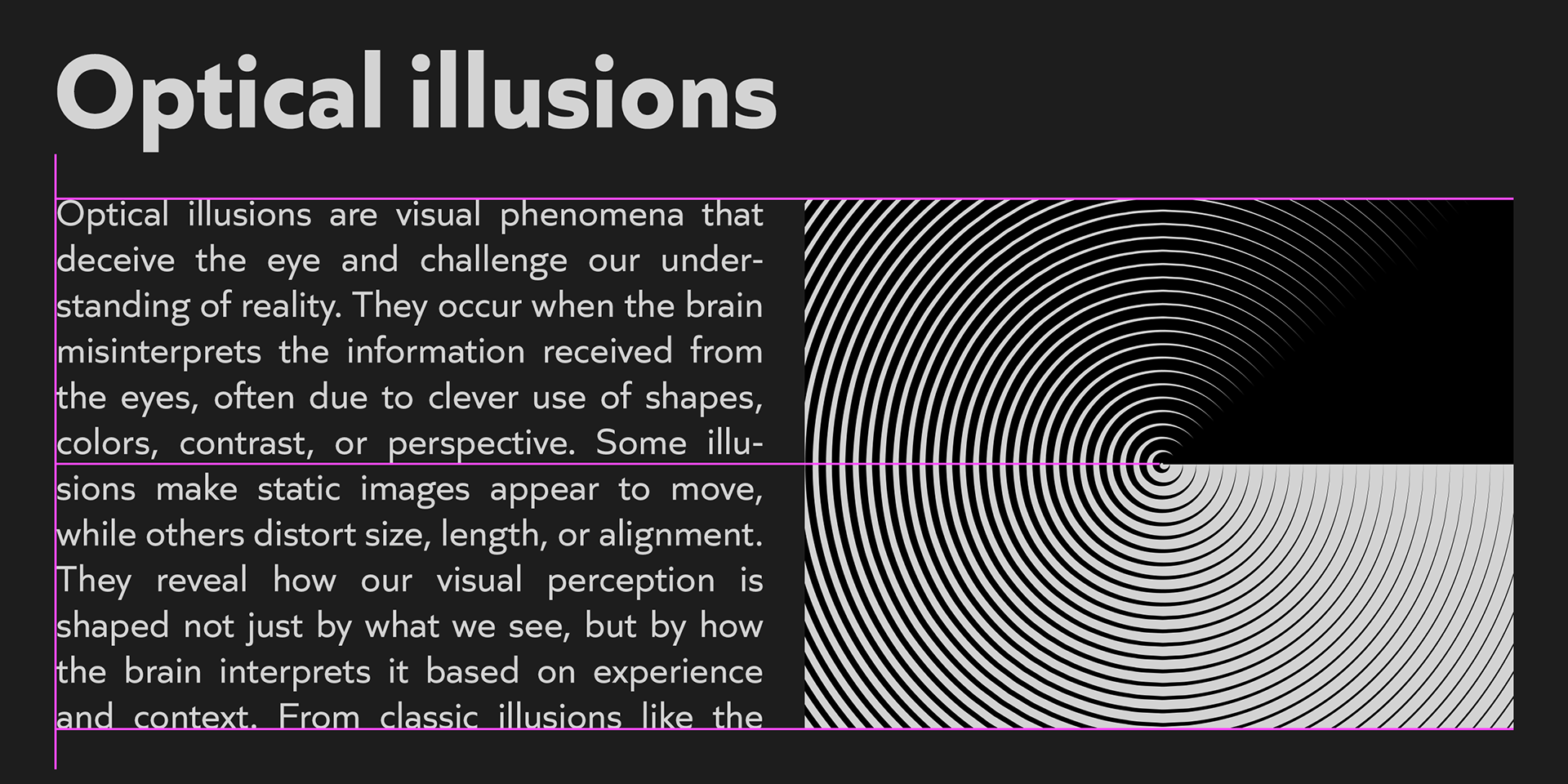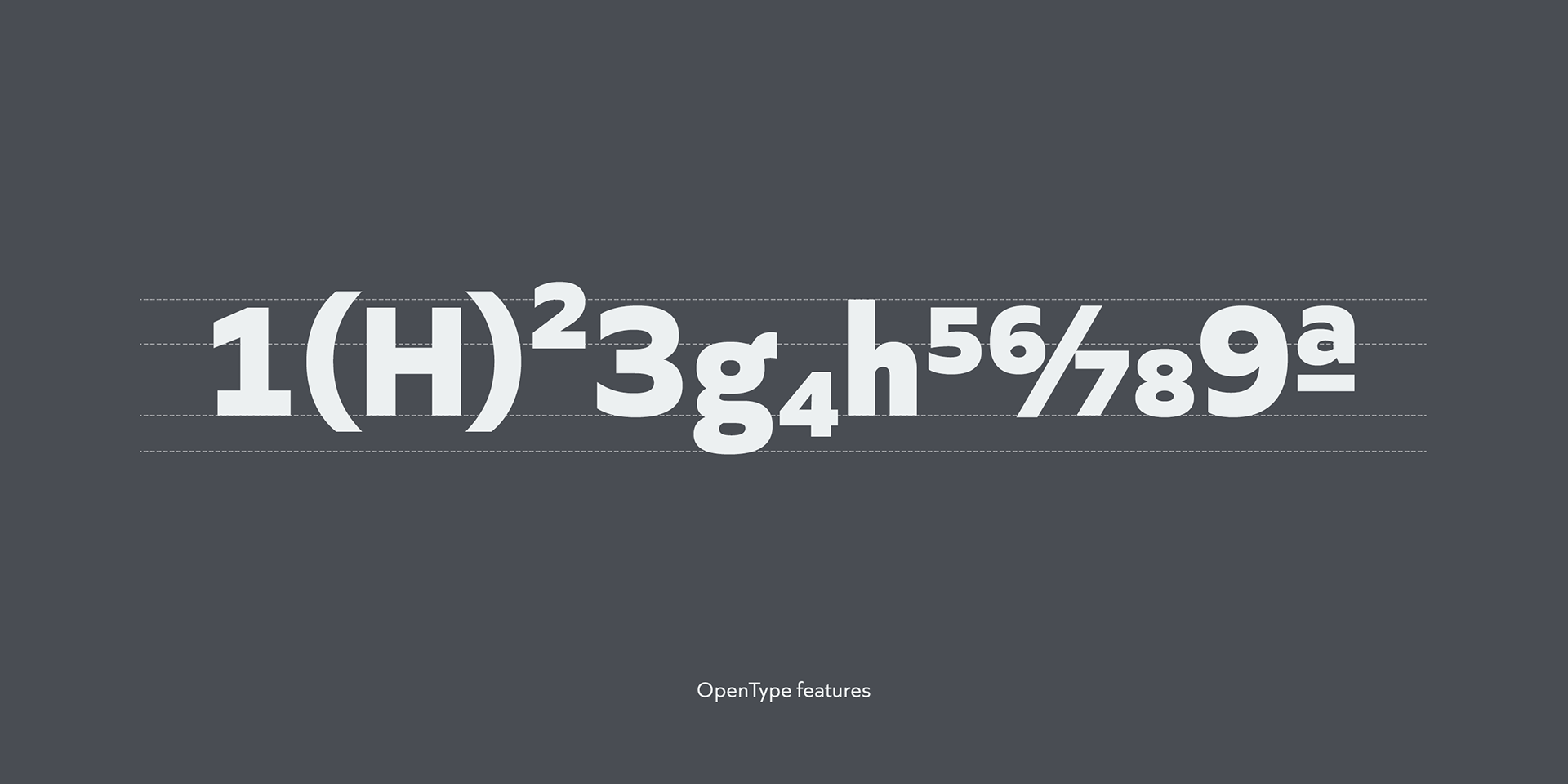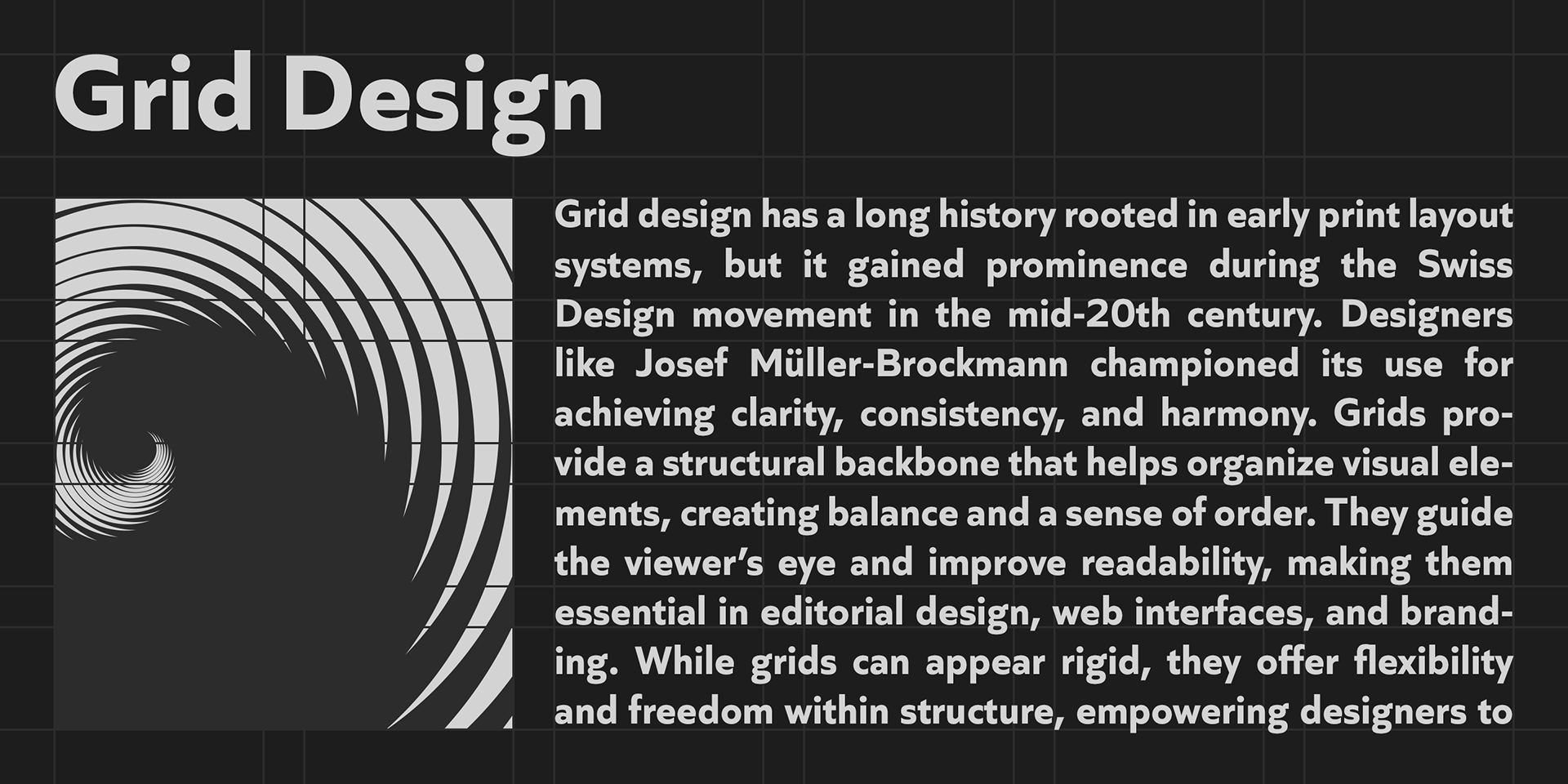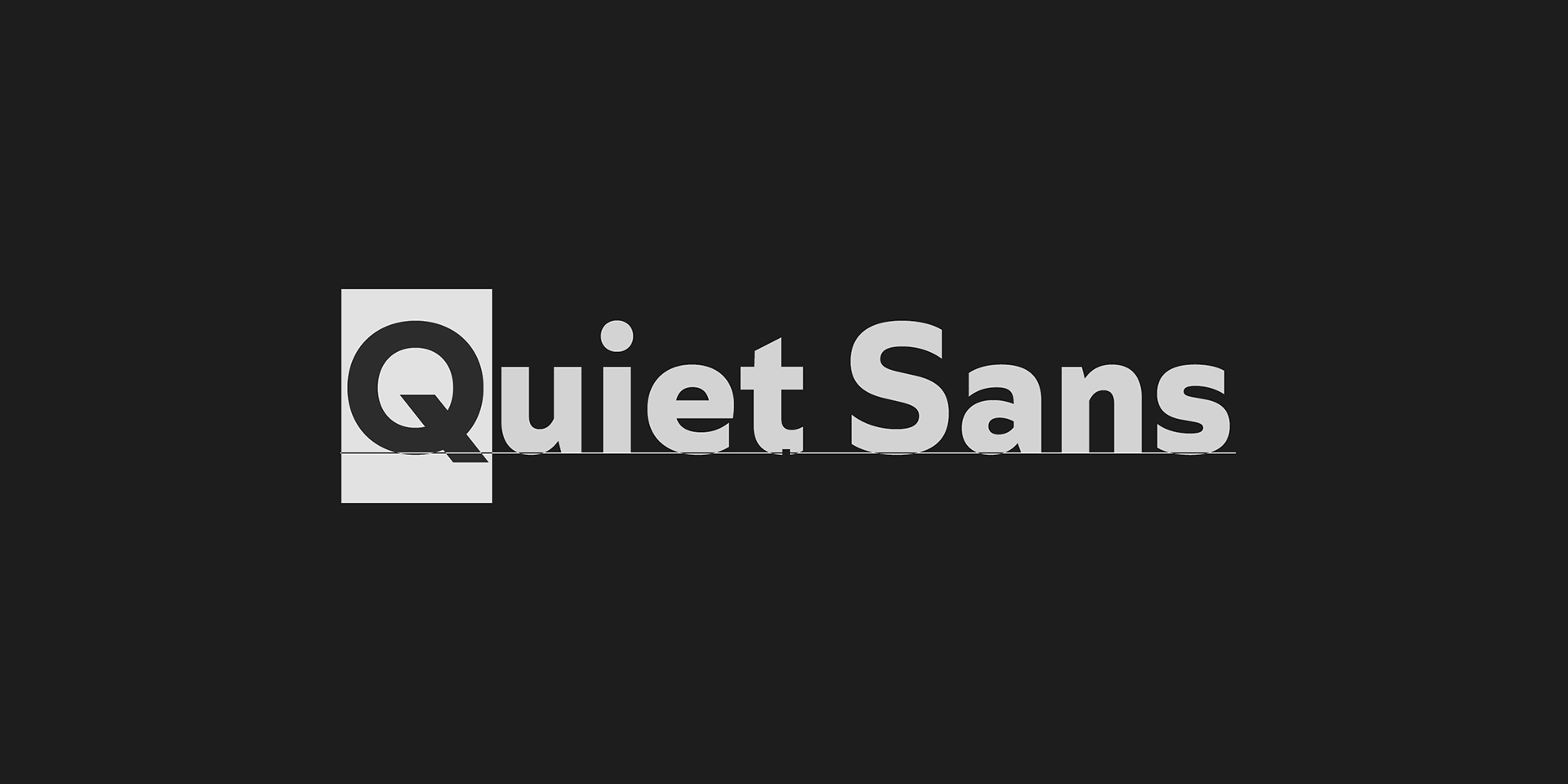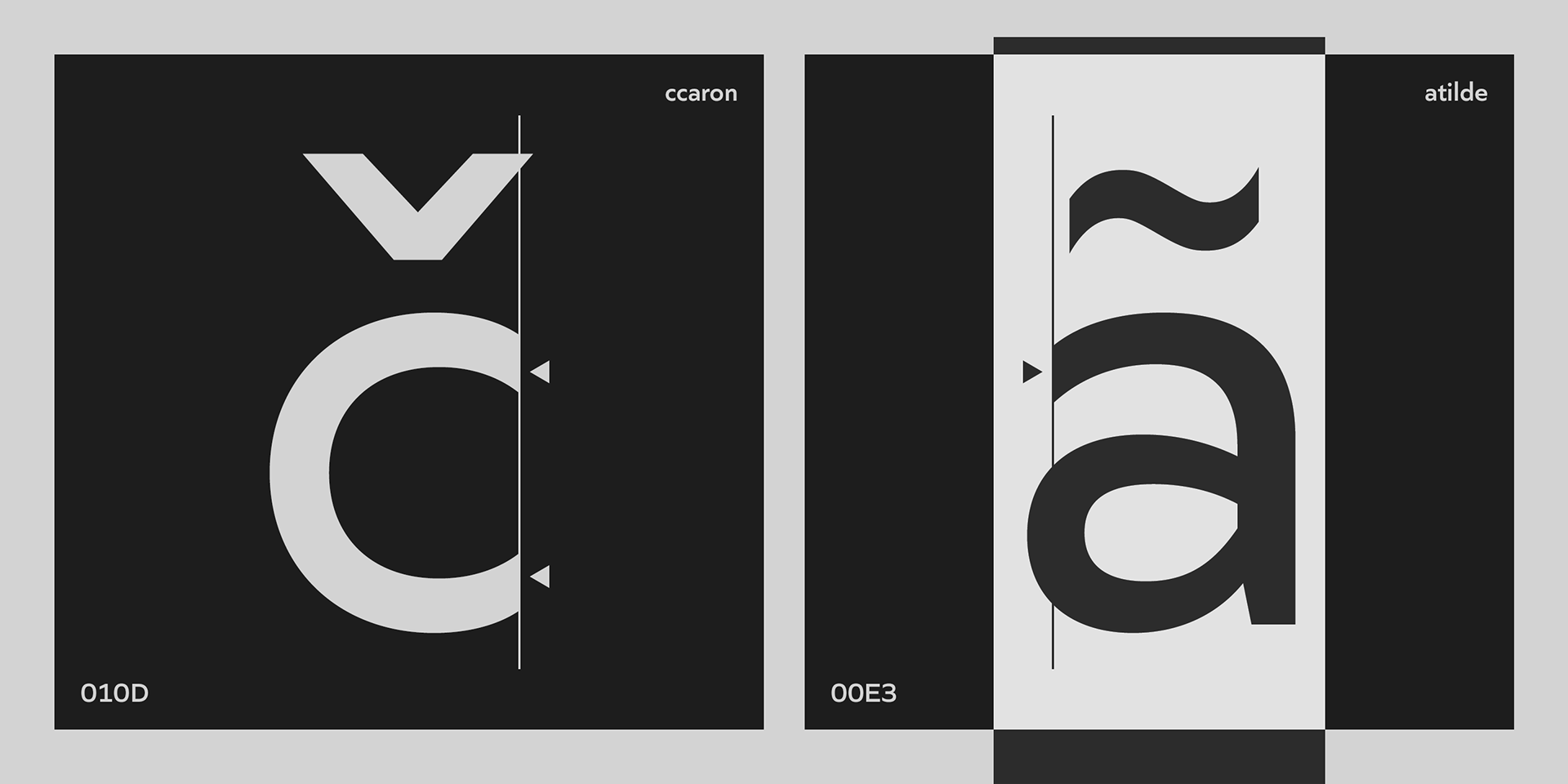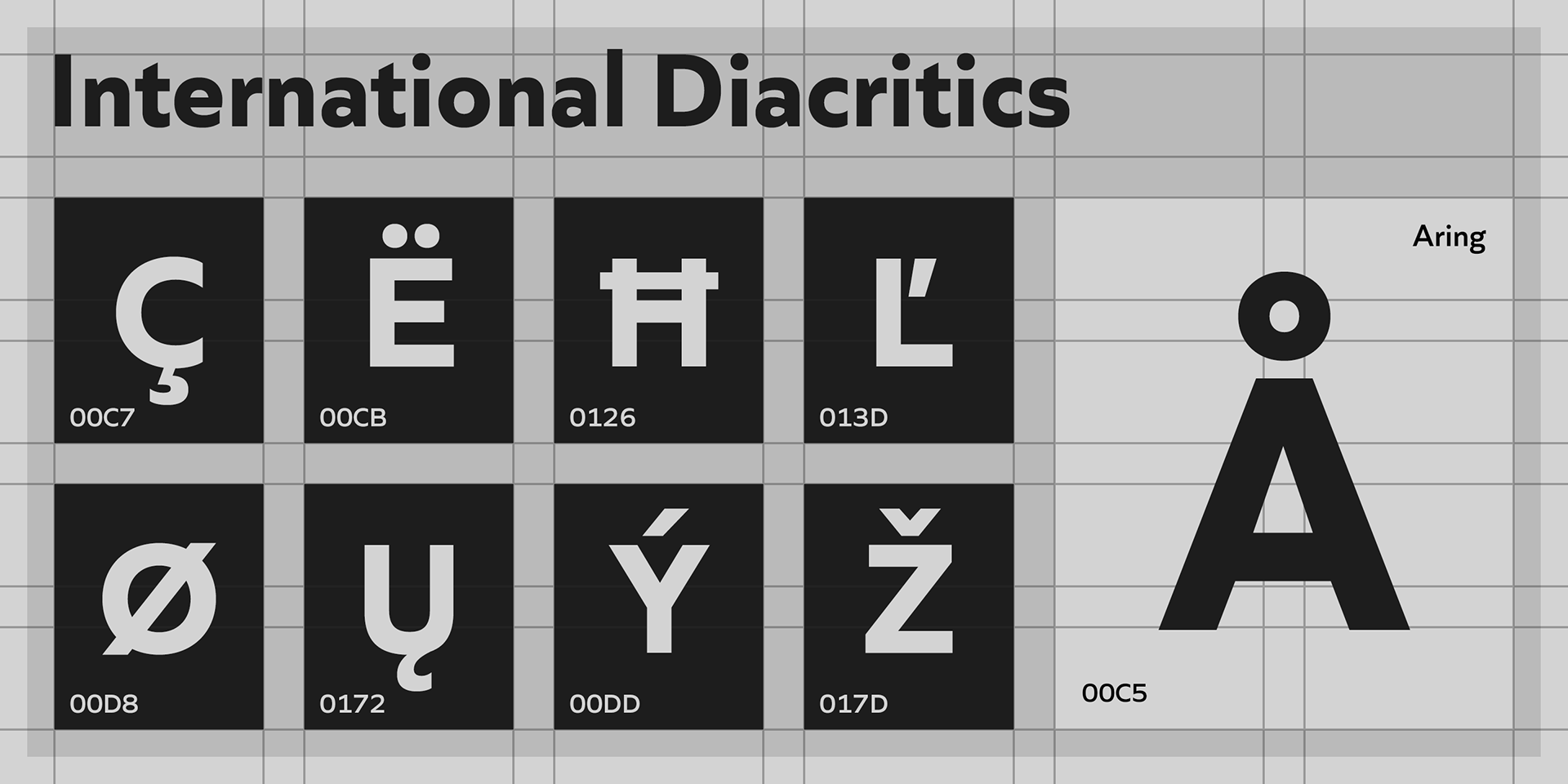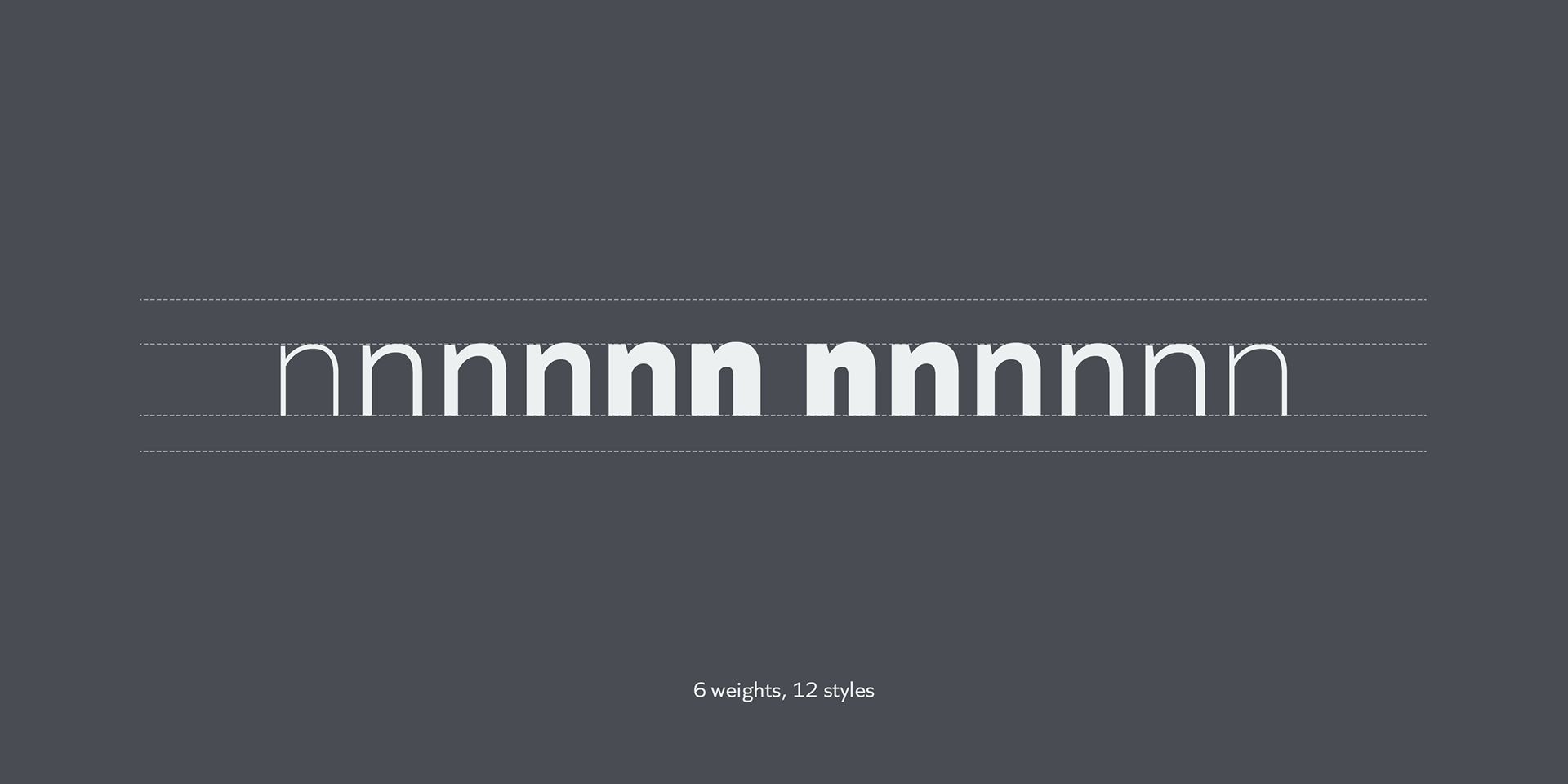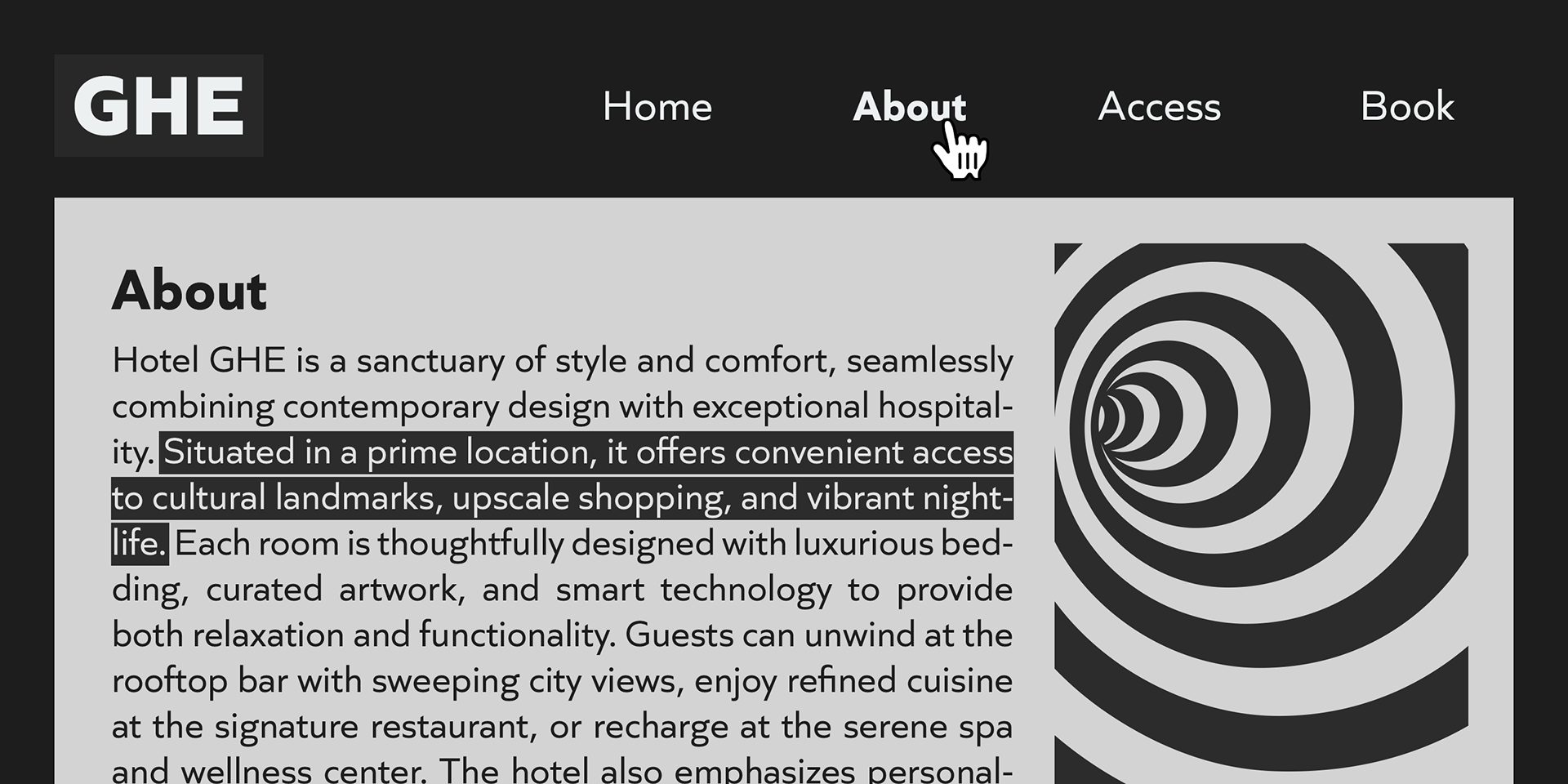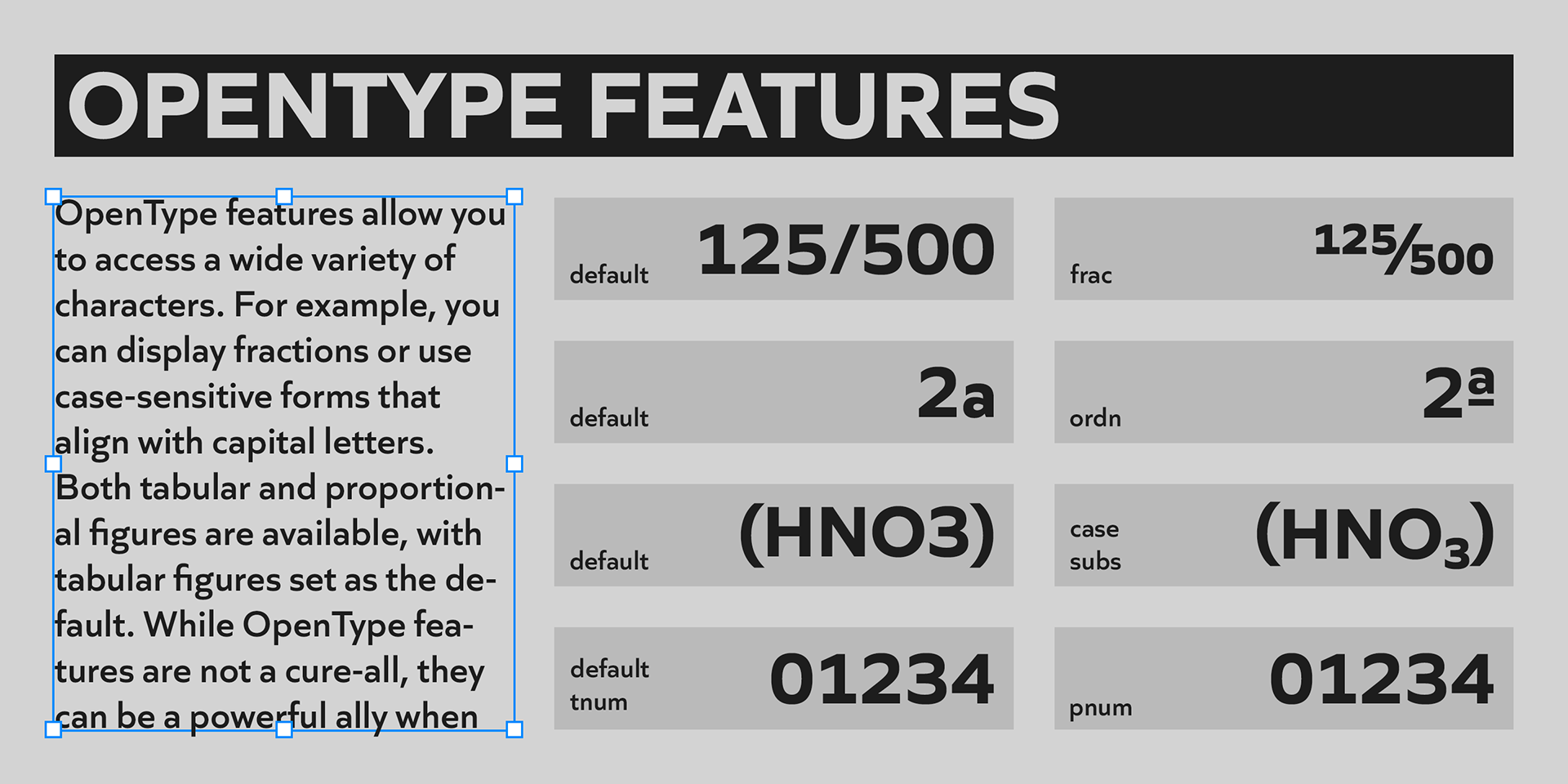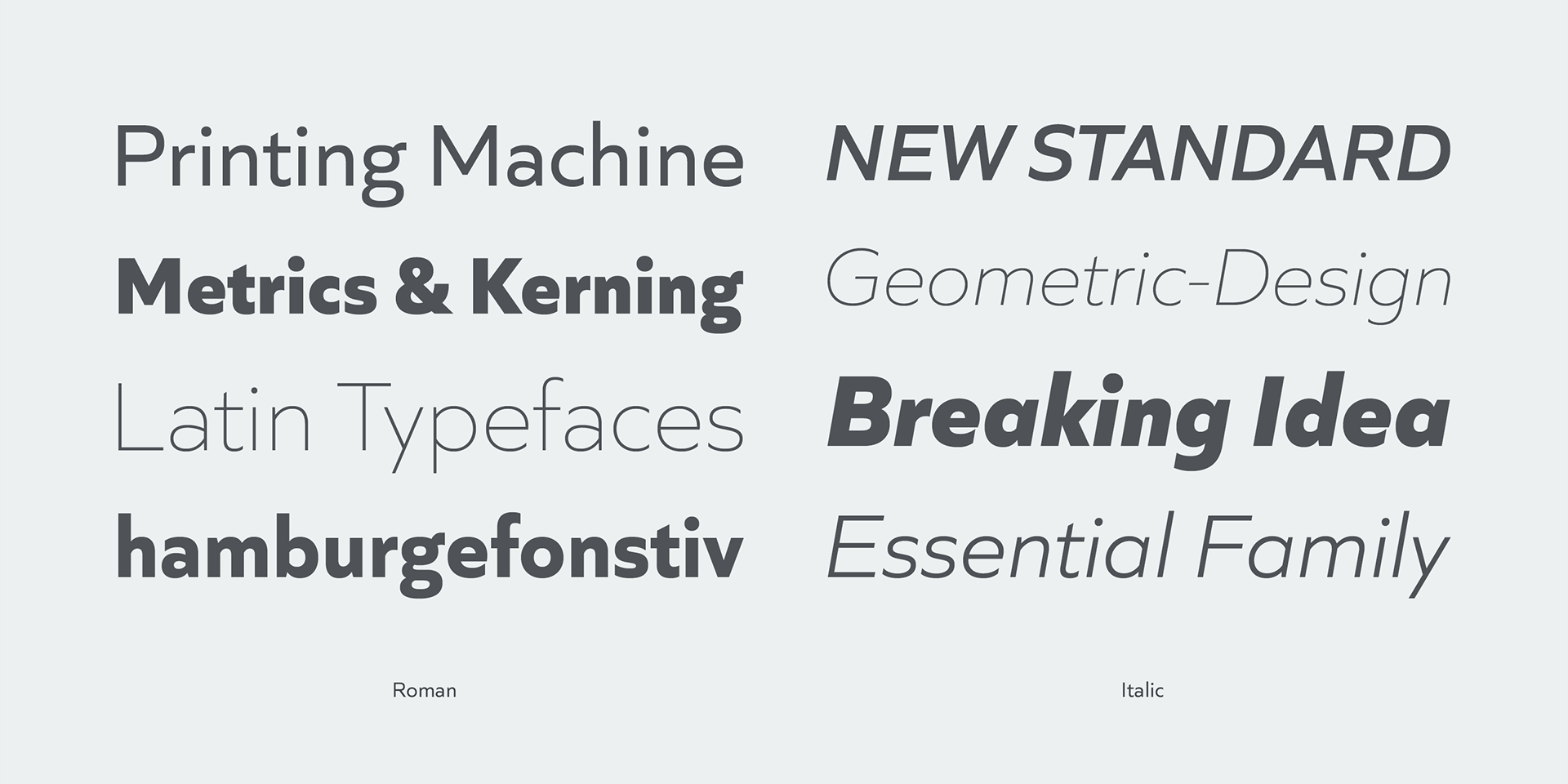
Quiet Sans
Quiet Sans is a super geometric sans-serif type family designed by Ryoichi Tsunekawa, crafted specifically for text and screen readability.
The family includes 6 weights, from ExtraLight to ExtraBold, each with matching italics, offering a wide range of typographic flexibility.
The core concept behind Quiet Sans is to combine crisp, sharp, geometric letterforms with a sophisticated design that ensures excellent legibility and readability, even at small sizes on digital screens.
It supports a broad range of European languages, including Western, Central, and South Eastern European languages, as well as Afrikaans.
Advanced OpenType features are included, such as proportional figures, superior/inferior figures, denominators, numerators, fractions, ordinals, and case-sensitive forms, making it a reliable and highly functional choice for modern typography.